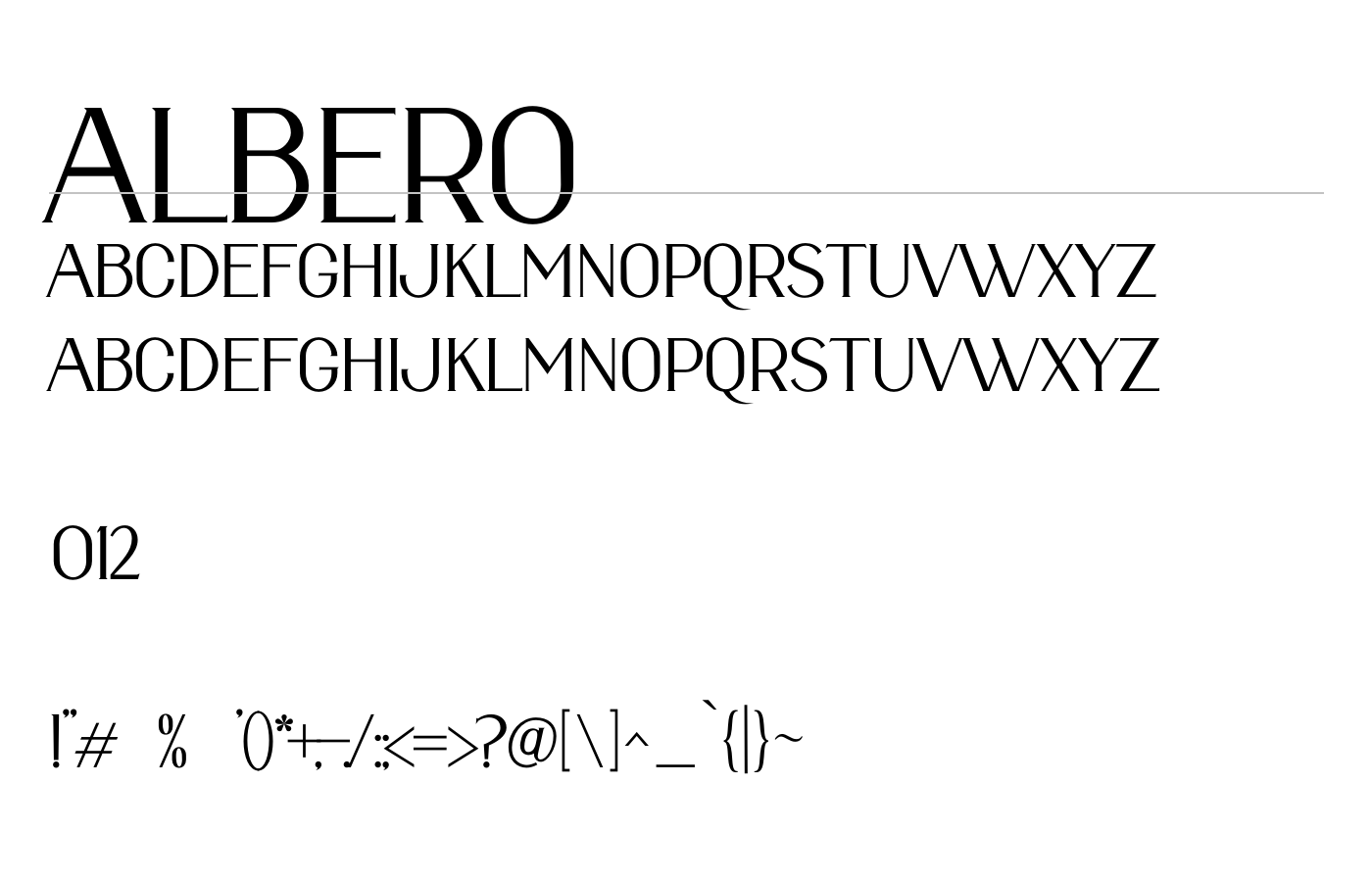
Albero is a slender, elegant serif typeface with modern influences, characterized by its high contrast between thin and thick strokes and fine, tapered serifs. Its tall, narrow letterforms and refined details give it a sophisticated, stylish feel, making it ideal for upscale branding, editorial headlines, and luxury packaging where a chic, contemporary look is desired. This font’s clean, elongated shapes lend a graceful and polished aesthetic that works well in designs seeking a subtle yet distinctive touch of elegance.
ALBERO Font
About ALBERO Font